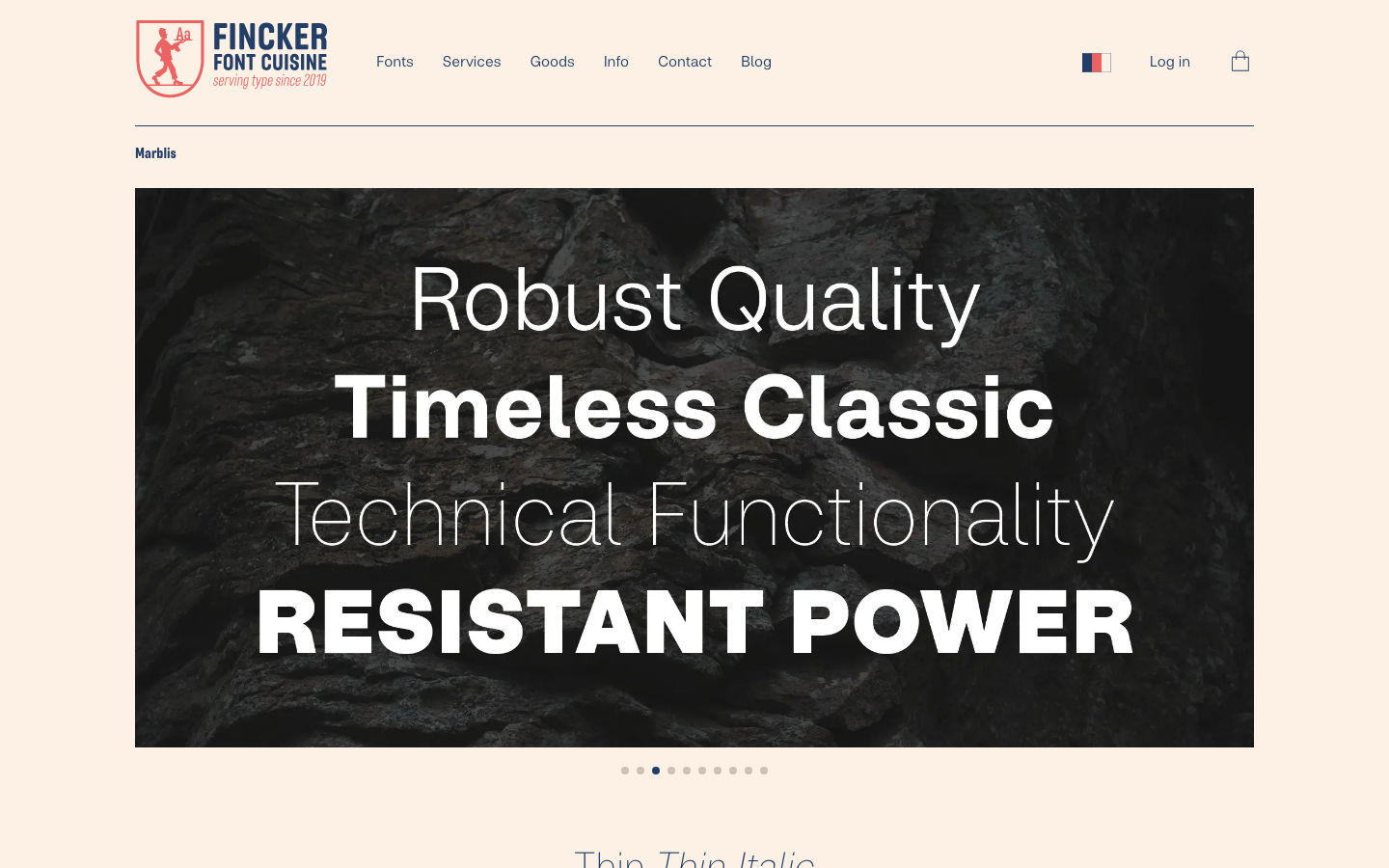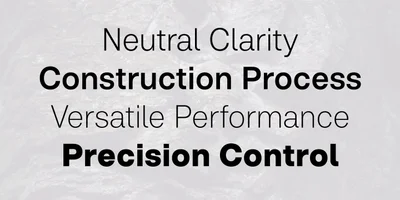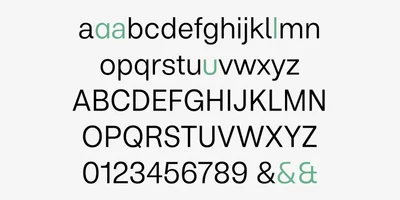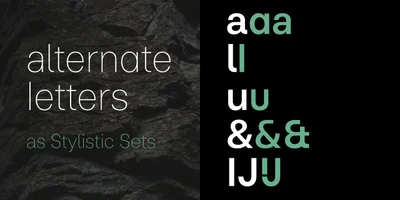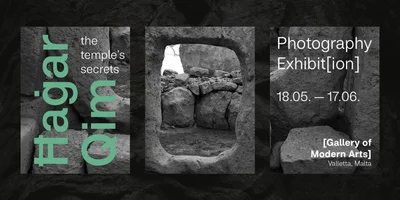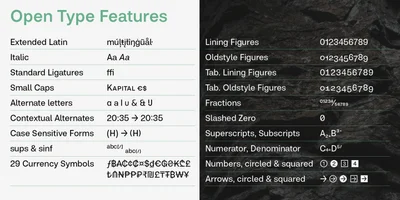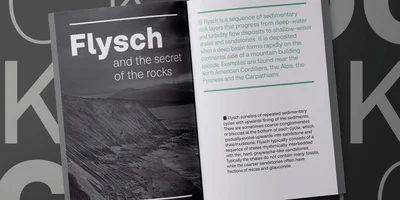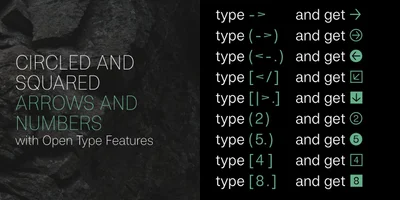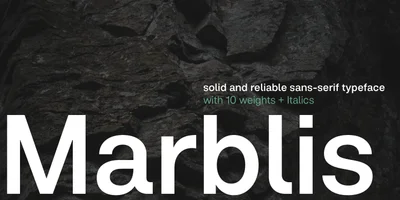
Calibre vs Marblis
Calibre and Marblis are both sans-serif typefaces sharing a neo-grotesque foundation. The two share 80% design similarity overall. Compare which suits your Branding project.
| Feature | Calibre | Marblis |
| Source | Klim Type Foundry | Fincker Font Cuisine |
Typography for slide decks, keynotes, and presentation materials. Presentation f...
Typography for navigation systems, directional signage, and environmental graphi...
Recommended: Calibre
- Suited for Tech and Advertising
- From klim-type-foundry
Consider: Marblis
- minimal design character
- Suited for Corporate and Wayfinding
- From fincker-font-cuisine